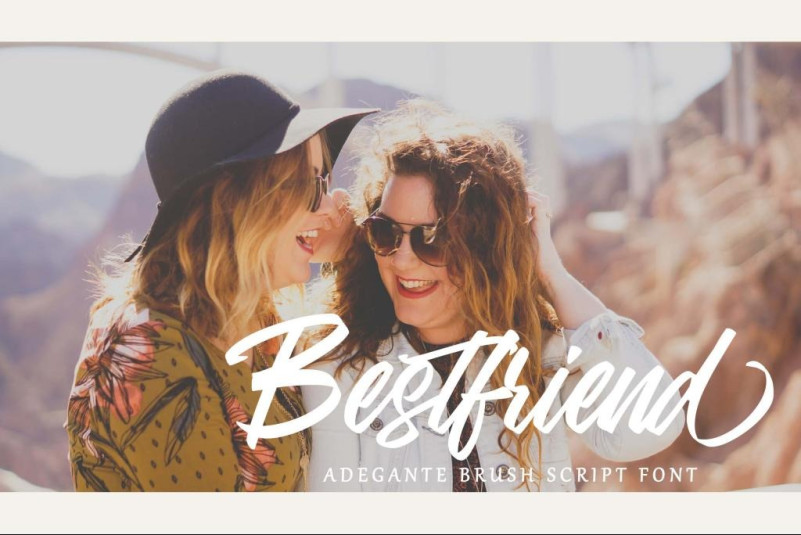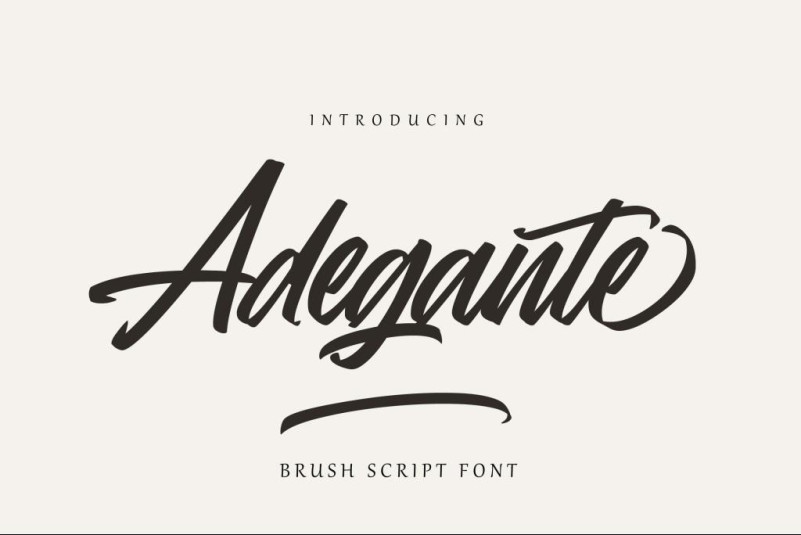
Adegante Font
Adegante Brush Font, its optimum legibility, clean, and geometric look is perfect branding, brochures, greeting cards, quotes, posters, stationary, design titles, blog headers, and much more. It brings a modern and attractive typeface. Made for any professional project branding.
Uppercase, Lowercase, Numeral & Punctuation
Alternate Letters, Ligature & Swash/Tail
Multilingual & PUA Encoded